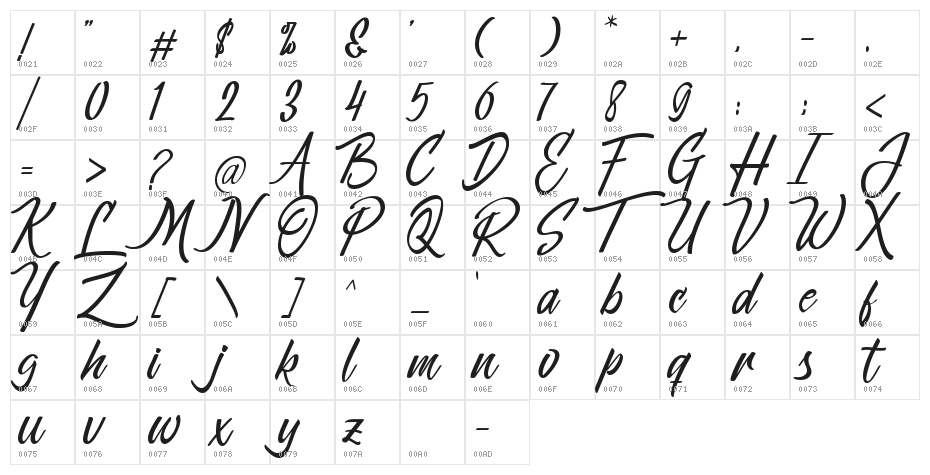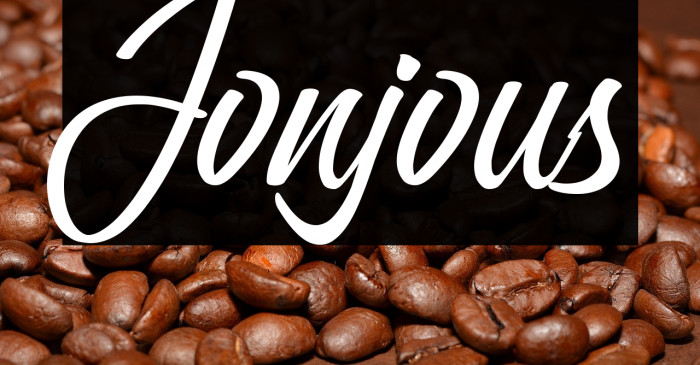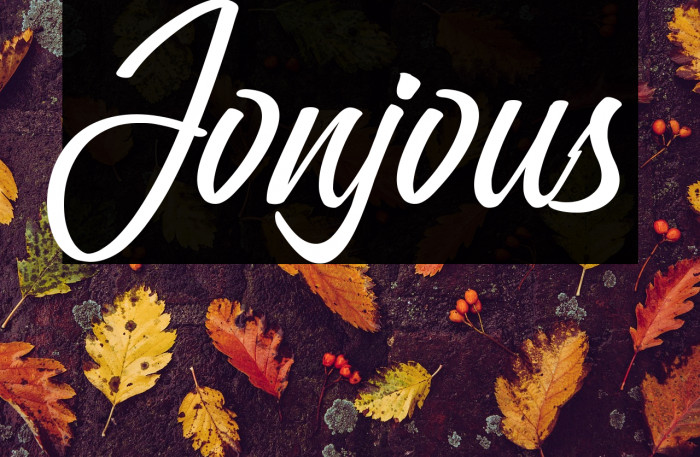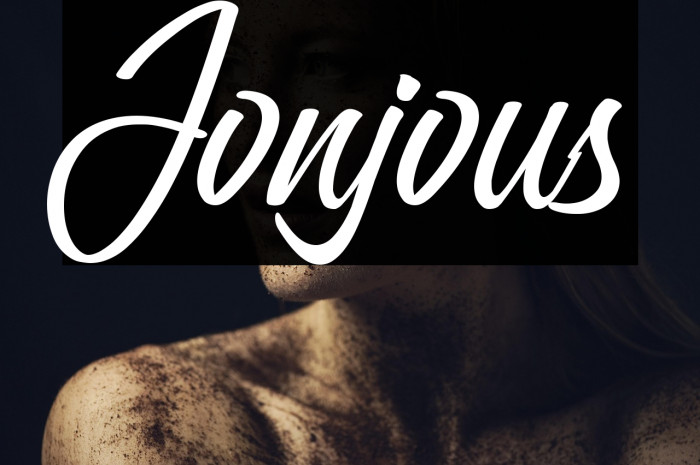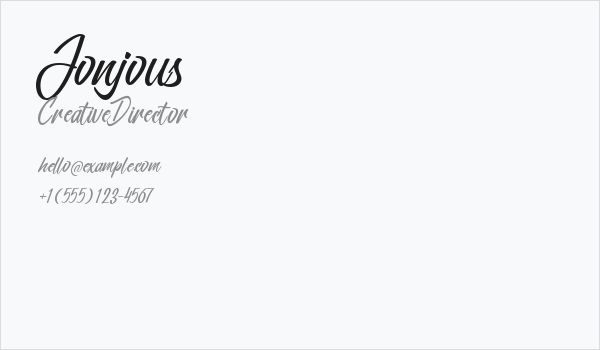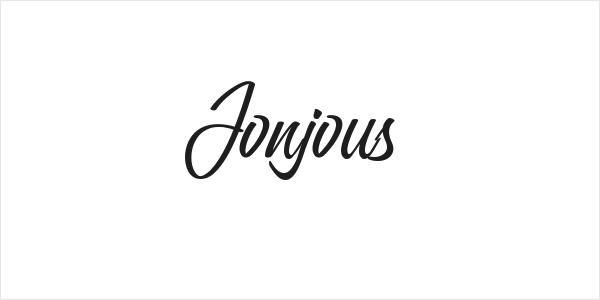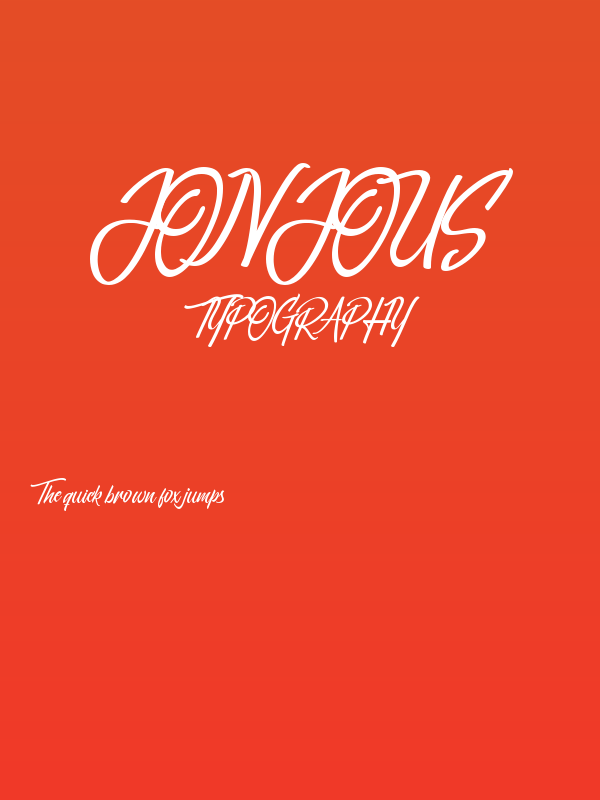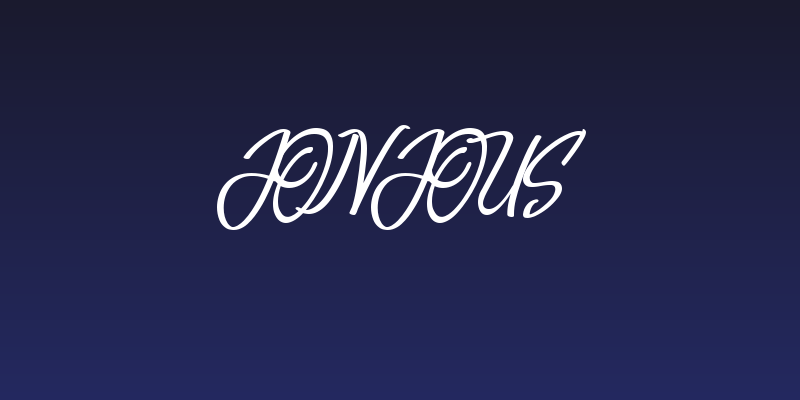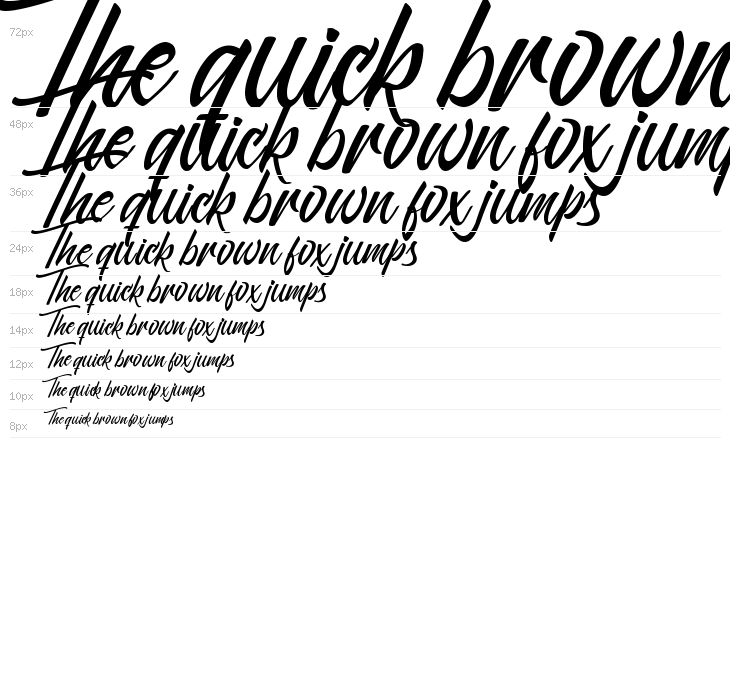
Jonjous Font
Jonjous Description
This font exudes a dynamic and energetic style, characterized by its flowing, cursive script. The letters are interconnected with sweeping strokes that give a sense of movement and fluidity. The uppercase letters are bold and prominent, while the lowercase letters maintain a consistent rhythm, enhancing readability. The numerals are equally expressive, maintaining the font's overall lively aesthetic. Special characters are crafted with the same attention to detail, ensuring they blend seamlessly with the rest of the typeface. This font is ideal for projects that require a personal, handwritten touch, making it perfect for invitations, greeting cards, and artistic branding.
| Proposed Projects | Ideal for invitations, greeting cards, artistic branding, and personal projects. |